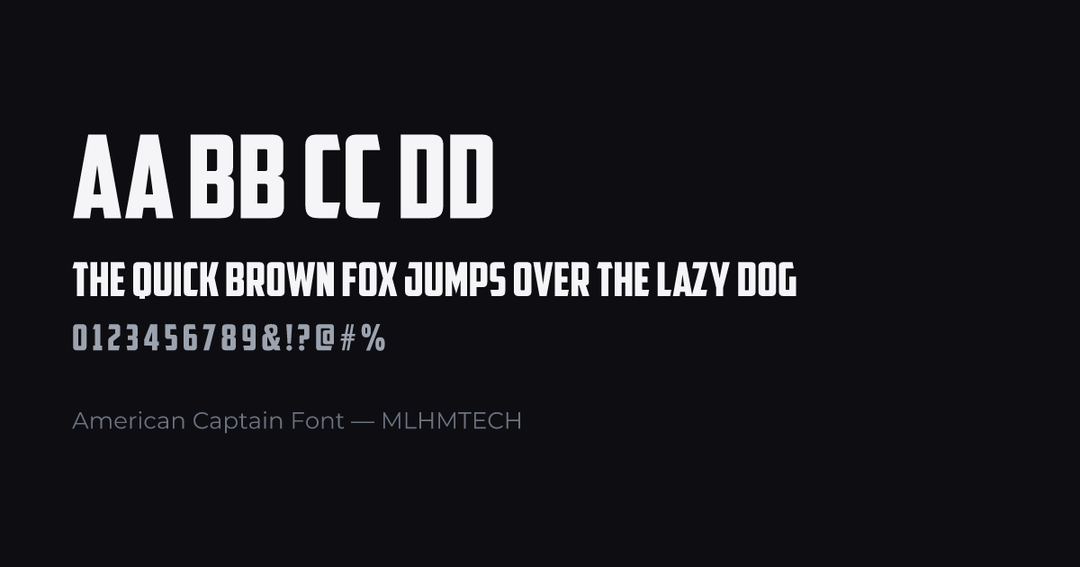
American Captain Font
American Captain is a bold, all-caps display font with a vintage American feel. Ideal for titles, posters, and branding that need a strong, patriotic character.
American Captain is a striking display font that exudes strength and patriotism. Its bold, condensed letterforms are inspired by classic American typography, making it perfect for headlines, posters, and branding projects that require a commanding presence.
This font is part of a handpicked collection, ensuring high quality and uniqueness. Whether you're designing a movie poster, a logo, or a social media graphic, American Captain will add a touch of vintage Americana to your work.